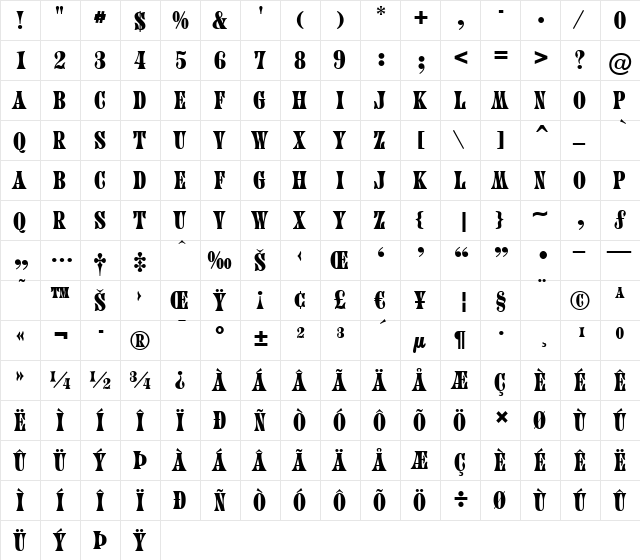
a_Calyx Regular
| Designer | W.Chufarofsky & M.Slutsker |
Design Context for a_Calyx Typeface
a_Calyx takes a measured approach to typography — its balanced proportions and neutral character make it a reliable workhorse for both digital and print work.